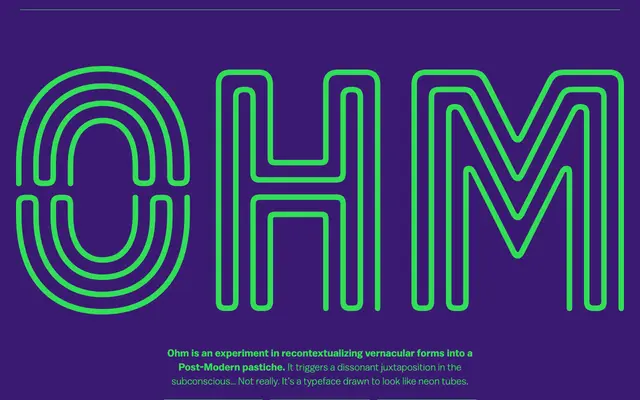
Ohm specimen from Balto / Type Supply
A three-weight display family drawn to replicate the visual character of neon tube lettering.
Each letterform in Ohm mimics the continuous, bent-tube quality of neon signage, with joins and terminals shaped to suggest glass tubing rather than ink on paper. Three weights from Light to Bold allow for variation in apparent tube diameter. OpenType features include discretionary ligatures and fractions, and the family covers a broad range of Latin-based languages.
Drawn to mimic neon tube lettering, Ohm is a display face with a specific vernacular reference; it belongs to the display category as a novelty type with a singular visual concept rather than a general-purpose text or headline design.